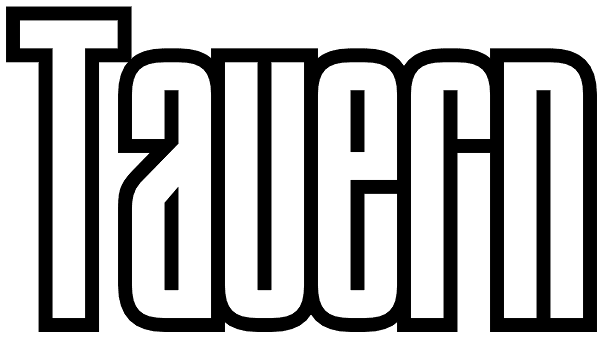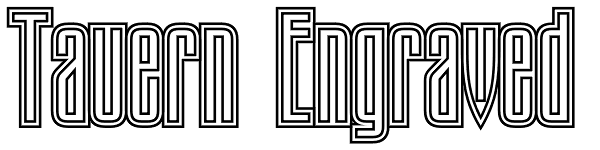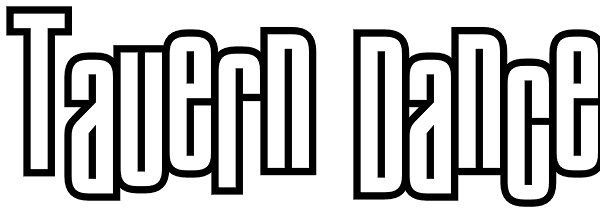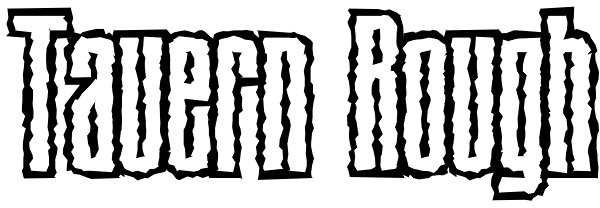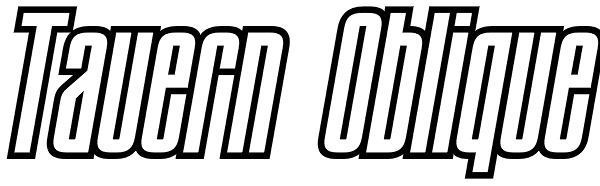
Tauern
A family of extra compressed styles designed at ParaType in 1993 by Alexander Tarbeev. For use in advertising and display typography. Decorative versions were added in 1996.